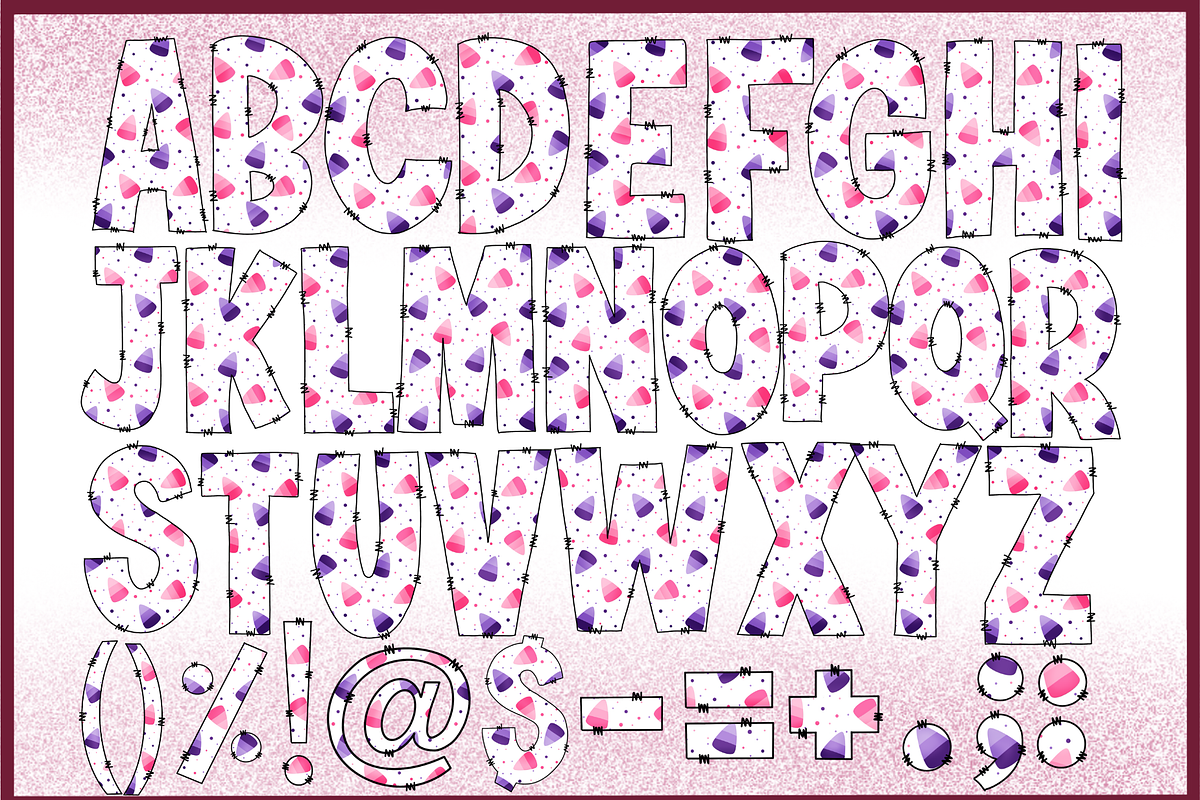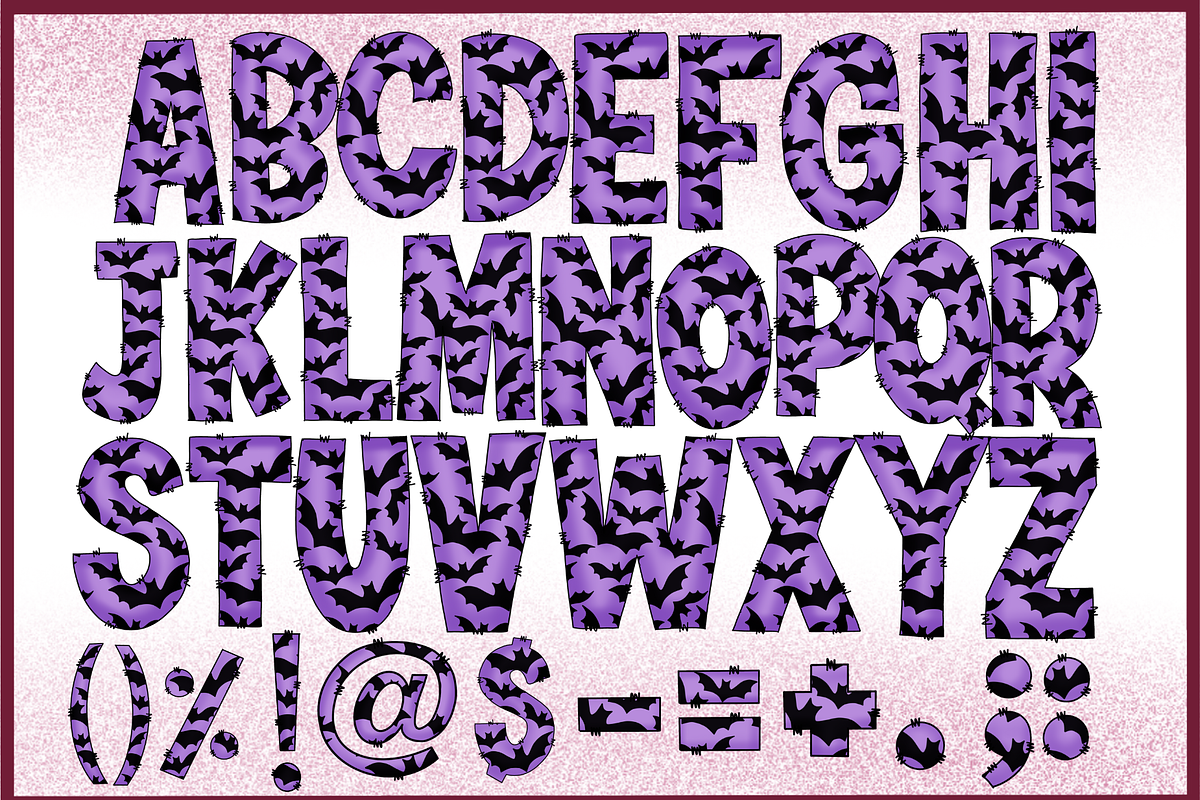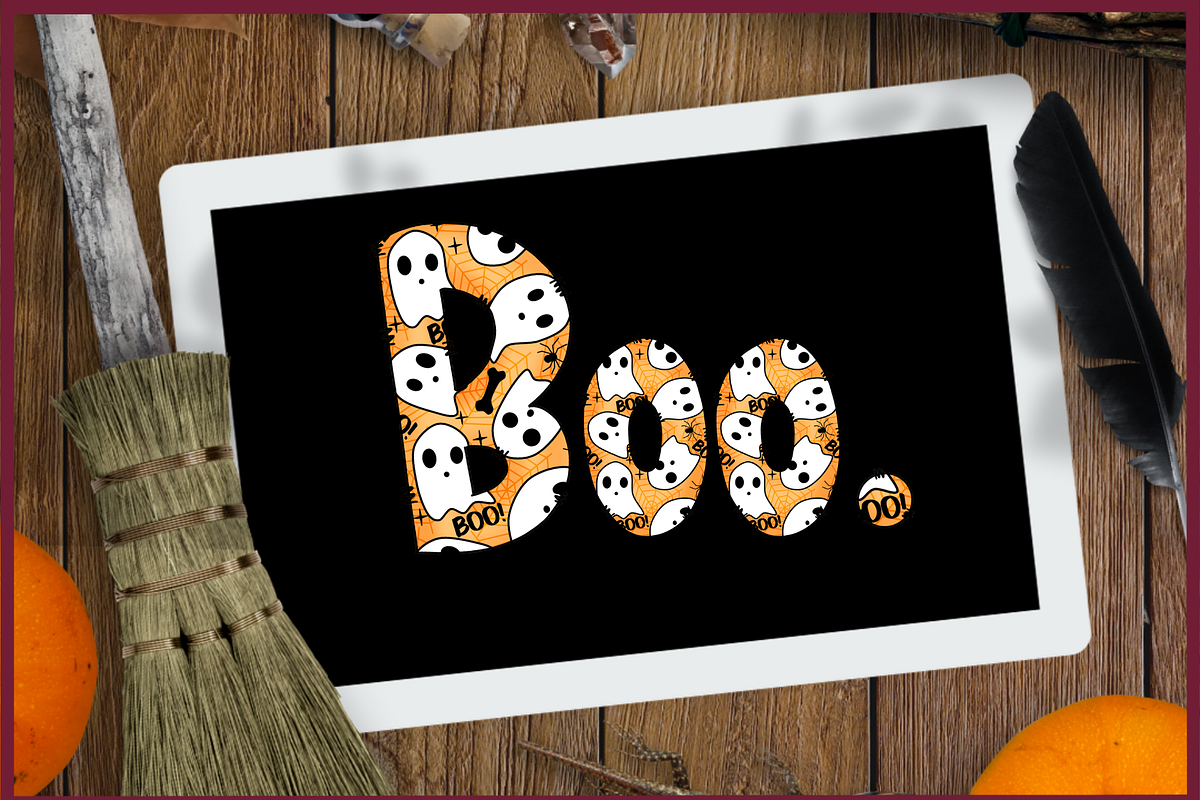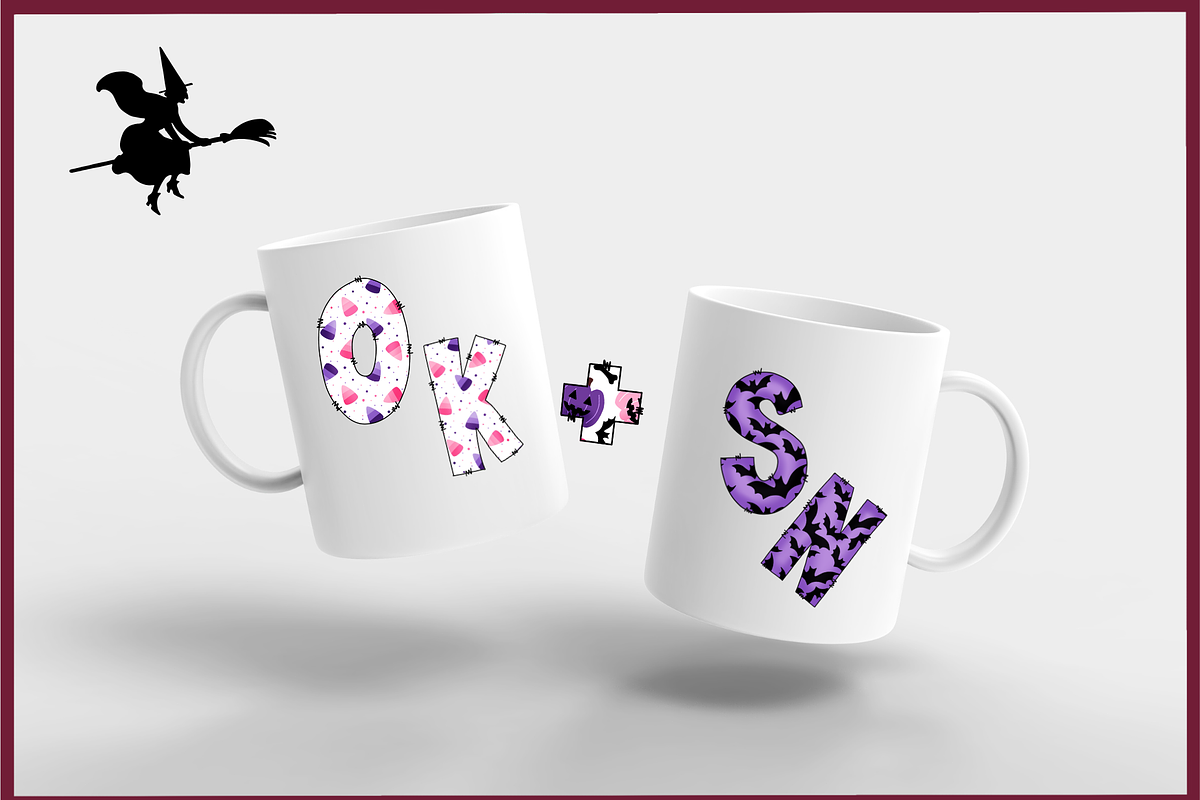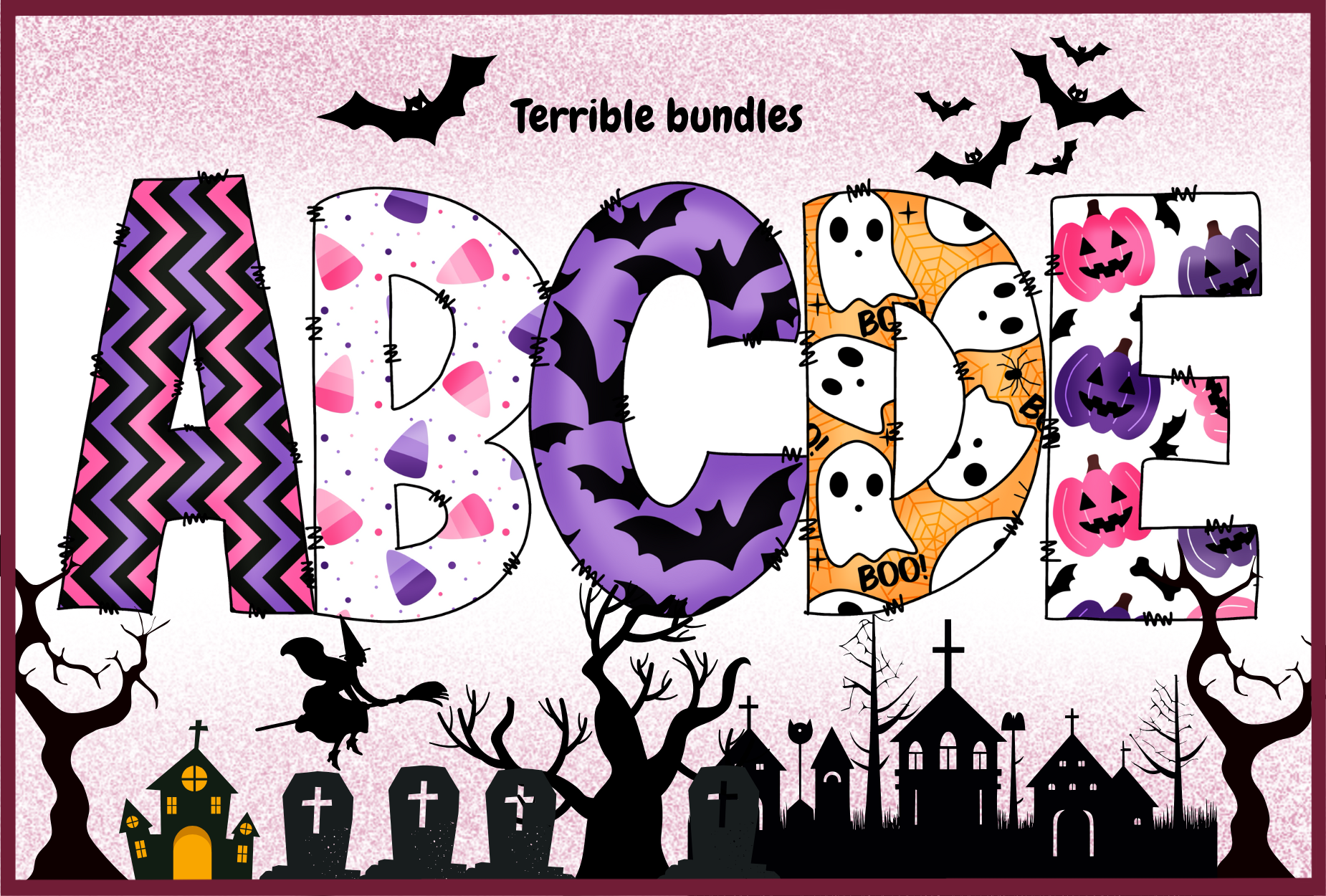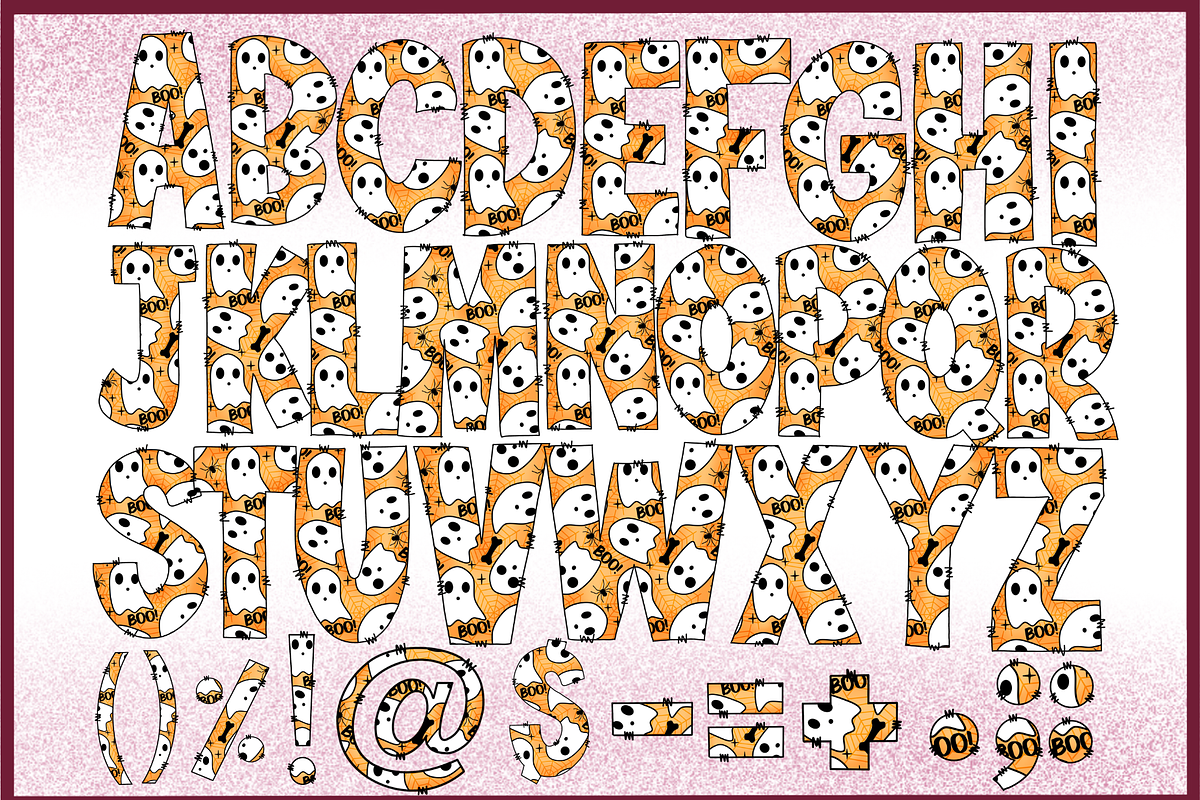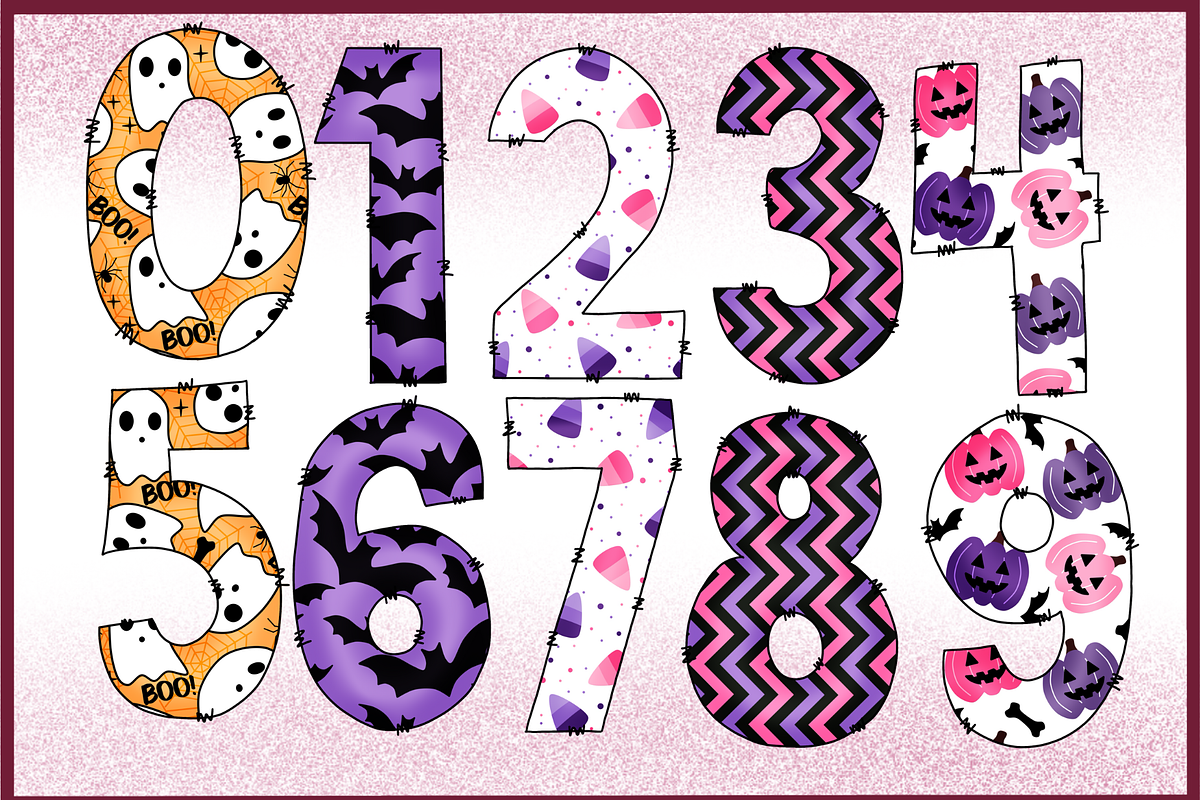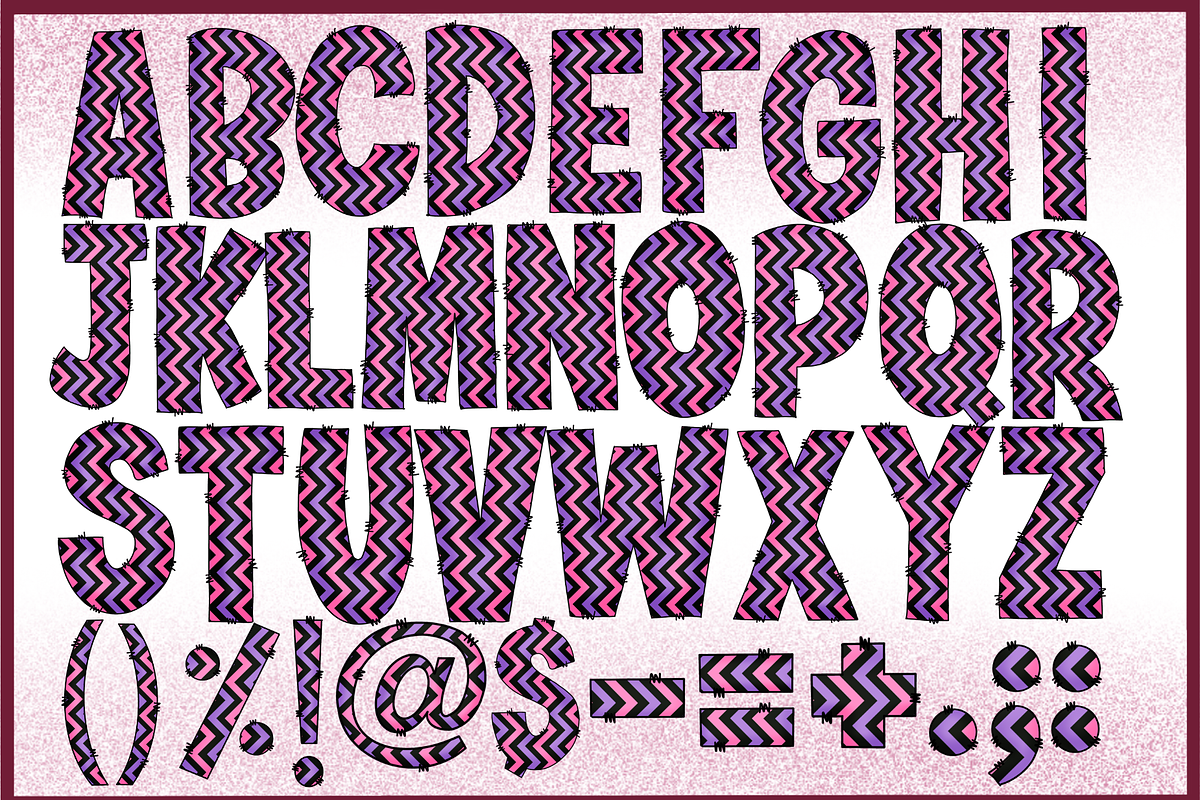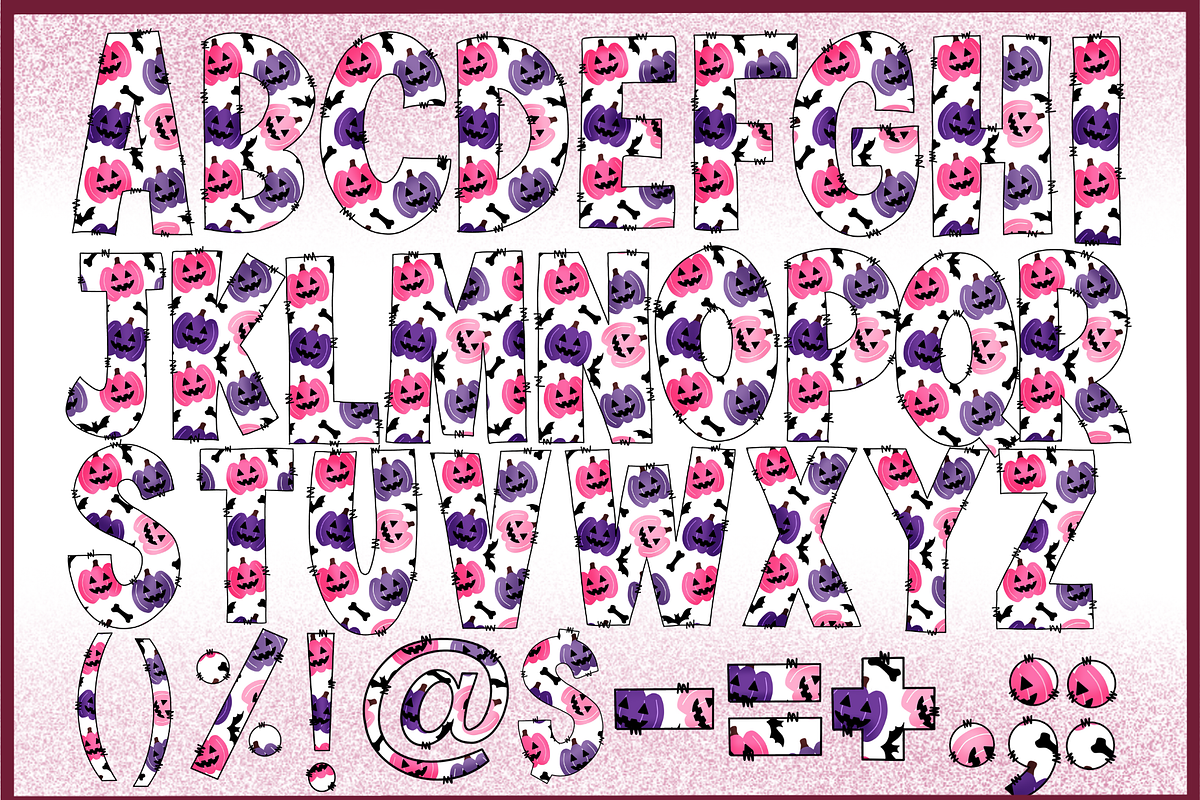
Terrible-PNG fonts
Terrible Font
Terrible font is a bold and vibrant Halloween-themed color font that bursts with spooky charm and kid-friendly whimsy, You will get PNG color fonts set OTF,TTF files.